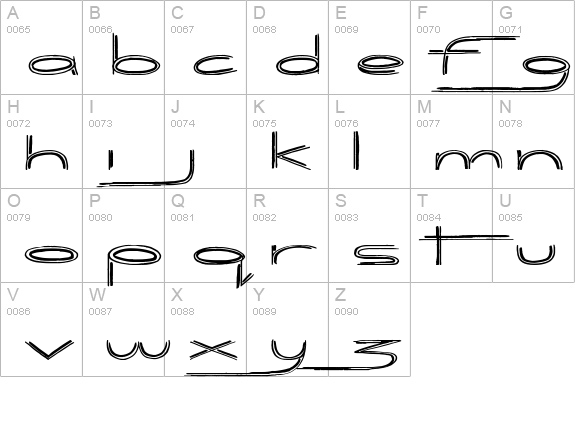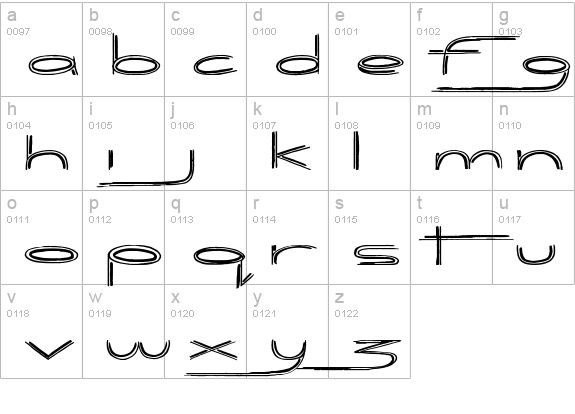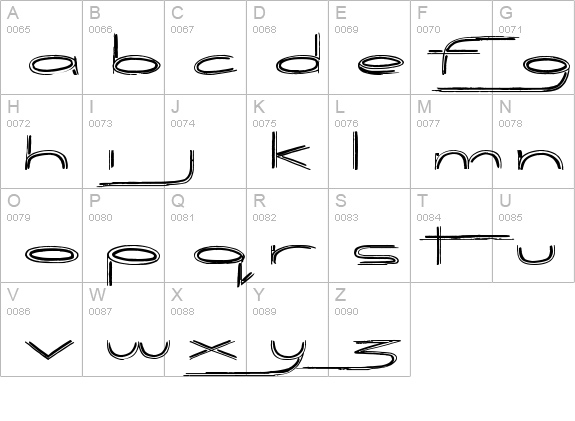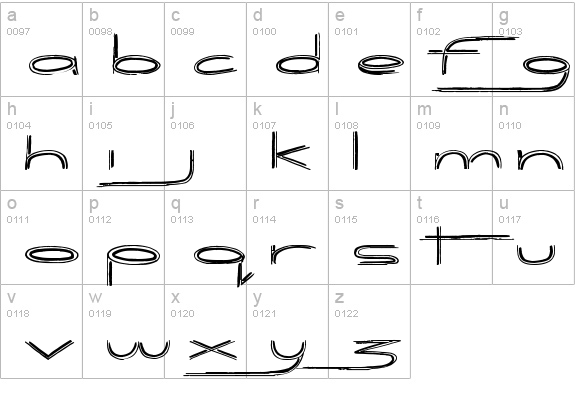
Blazer font is a stunning typeface that exudes elegance and sophistication. Its sleek and modern design makes it perfect for a wide range of projects, from branding and logo design to editorial layouts and website headers. With its clean lines and stylish curves, Blazer font adds a touch of professionalism and class to any design. What sets Blazer font apart is that it is not only visually appealing, but it is also freely available to download. Yes, you read that right - Blazer font is completely free! You can easily access and download this exceptional font at FontsMarket.com, a trusted source for high-quality fonts. Whether you are a professional designer looking for a versatile and eye-catching font, or a casual user in need of a unique and stylish typeface for personal projects, Blazer font is the perfect choice. Its versatility and timeless appeal make it suitable for a wide range of applications, from print materials to digital designs. Blazer font features a wide range of characters, including uppercase letters, lowercase letters, numbers, and punctuation marks, ensuring that you have everything you need to create stunning typographic compositions. Its generous letter spacing and balanced proportions make it easily readable, even in small sizes. So, why wait? Enhance your design projects with Blazer font today! Download this incredible font for free at FontsMarket.com and unlock a world of creative possibilities. Whether you are designing a logo, creating a poster, or crafting a website, Blazer font will elevate your designs to new heights. Experience the beauty and versatility of Blazer font and make your designs truly stand out!